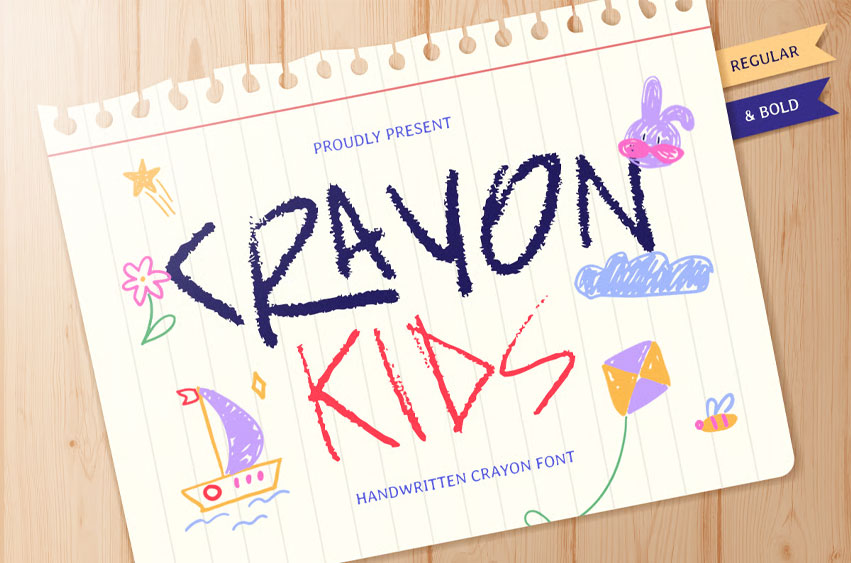
Crayon Kids Font
Crayon Kids Font is a handwritten crayon font full of fun, color, and imagination. Designed with the natural texture of real crayon strokes, this typeface brings a warm, handmade feel to your creative projects — perfect for children’s branding, school materials, posters, and playful packaging.
The uneven shapes and expressive lines of CRAYON KIDS capture the charm of kid-drawn lettering, making it ideal for storybooks, classroom worksheets, birthday invitations, toy labels, and friendly social media graphics. Its vibrant personality helps every design feel alive, cheerful, and authentically child-like.
Whether used in bold titles or playful accents, CRAYON KIDS instantly adds joy, creativity, and youthful energy to any project.
CRAYON KIDS – Handwritten Crayon Font Features
• Realistic crayon-style handwritten lettering
• Ready with 2 Weights: Regular and Bold Version
• Perfect for kids’ branding, school materials, storybooks, and fun packaging
• Natural texture and organic shapes for a playful handmade feel
• Great for posters, crafts, learning tools, and social content
• OpenType features for creative flexibility
Bring handmade charm to your designs with CRAYON KIDS – the ultimate crayon-style font for playful, colorful, and creative children’s projects.